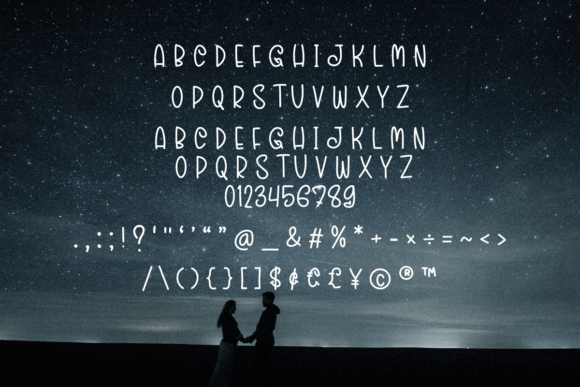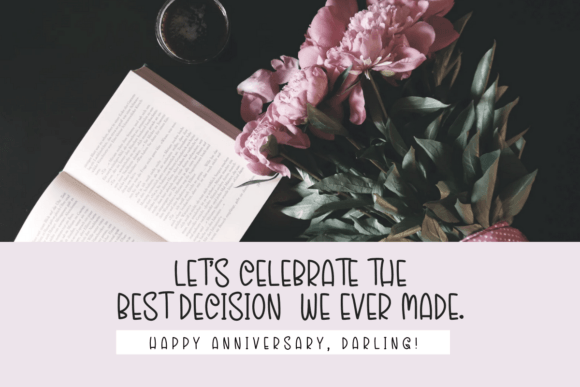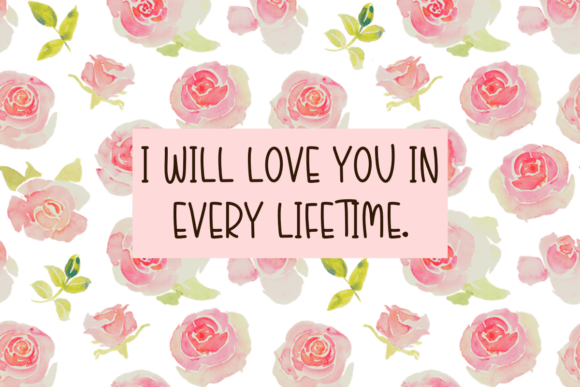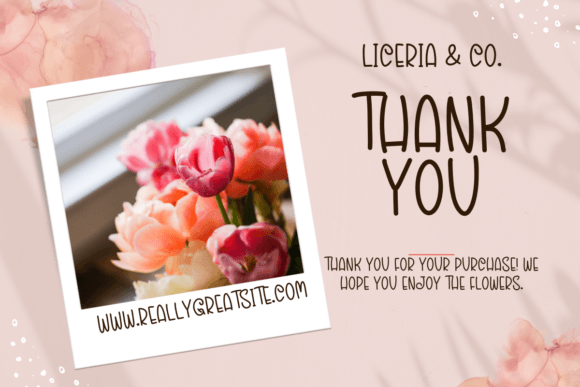
Hello Darling Font: A Charming Handwritten Font for Creative Projects
Are you a designer, crafter, or DIY enthusiast looking for a unique and charming font to add a personal touch to your projects? Look no further than Hello Darling Font, a beautiful handwritten font that’s perfect for a variety of creative applications.
What is Hello Darling Font?
Hello Darling Font is a handwritten font that’s designed to resemble casual, everyday handwriting. It’s a one-of-a-kind font that’s perfect for adding a personal and whimsical touch to your projects. With its flowing script and charming letterforms, Hello Darling Font is sure to capture the hearts of designers, crafters, and DIY enthusiasts alike.
Uses for Hello Darling Font
Hello Darling Font is a versatile font that can be used for a wide range of creative projects, including:
- Note-taking: Use Hello Darling Font to add a personal touch to your notes and journals.
- Diary writing: Make your diary entries more special with this charming font.
- Greeting cards: Create beautiful and unique greeting cards for special occasions.
- Banners: Use Hello Darling Font to create eye-catching banners for parties, events, or promotions.
- Content creation: Add a personal touch to your blog posts, social media updates, and other online content.
- Mugs and ceramics: Create custom mugs, plates, and other ceramics with Hello Darling Font.
- Cards and invitations: Design beautiful cards and invitations for weddings, birthdays, and other special occasions.
- Shirts and apparel: Use Hello Darling Font to create custom t-shirts, hoodies, and other apparel.
- Stationery: Create custom stationery, including notebooks, journals, and letterhead.
- Social media posts: Use Hello Darling Font to create eye-catching social media posts that stand out from the crowd.
Why Choose Hello Darling Font?
There are many reasons why Hello Darling Font is a great choice for designers, crafters, and DIY enthusiasts. Here are just a few:
- Unique and charming: Hello Darling Font is a one-of-a-kind font that’s sure to add a personal touch to your projects.
- Easy to read: Despite its handwritten nature, Hello Darling Font is easy to read and understand.
- Versatile: Hello Darling Font can be used for a wide range of creative projects, from notes and journals to banners and social media posts.
- Customizable: You can use Hello Darling Font in a variety of contexts, from digital designs to hand-stamped projects.
Tips for Using Hello Darling Font
Here are a few tips for getting the most out of Hello Darling Font:
- Pair it with other fonts: Hello Darling Font pairs well with other fonts, including sans-serif fonts and serif fonts.
- Experiment with colors: Try using Hello Darling Font in different colors to add visual interest to your projects.
- Use it for headers and titles: Hello Darling Font is perfect for headers and titles, where its charming letterforms can really shine.
- Don’t be afraid to get creative: Hello Darling Font is a versatile font that can be used in a wide range of creative contexts.
Hello Darling Font is a charming handwritten font that’s perfect for designers, crafters, and DIY enthusiasts. With its flowing script and charming letterforms, it’s sure to add a personal touch to your projects. Whether you’re creating notes, journals, greeting cards, or social media posts, Hello Darling Font is a great choice. So why not give it a try and see what creative possibilities it opens up for you?